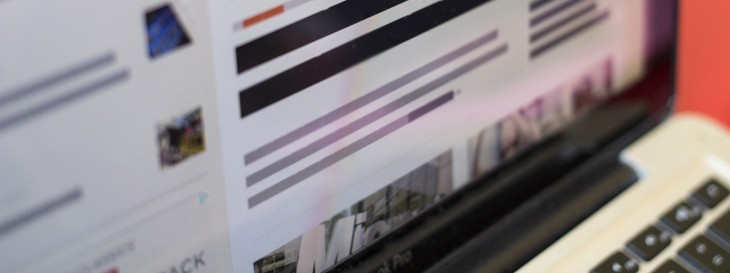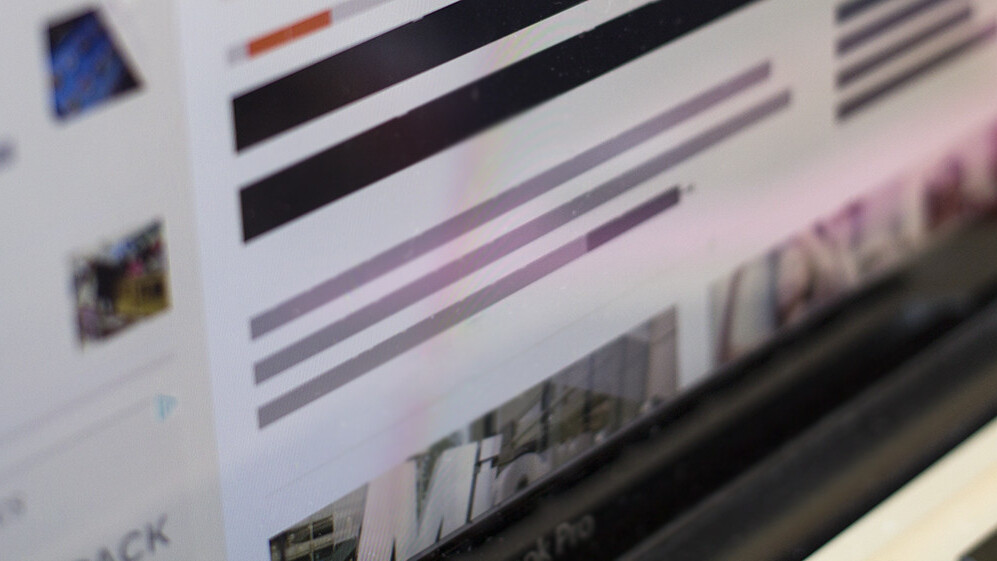
Ditch lorem ipsum for BLOKK: The perfect font for quick mock-ups and wireframing
Lorem ipsum, the Latin placeholder text often used when submitting designs to clients, has long been a popular choice for designers. As we’ve previously noted, Latin isn’t much like English, and so it can be misleading to use Latin filler text when designing type-heavy sites.
But sometimes, using any filler text at all can be too much at the earliest stages of a design. Especially when exploring possible layouts and doing thumbnail sketches (or the digital equivalent), a simple way to suggest where type will go is all that’s needed.
That is the role BLOKK fills; it’s a font made up of dashes (almost like what you’d find in a cartoon newspaper) for quick mock-ups and wireframing, and it’s awesome.
Yes, BLOKK is quite simplistic, but there’s something clever about it; it’s both a useful and comical way of rethinking filler text.